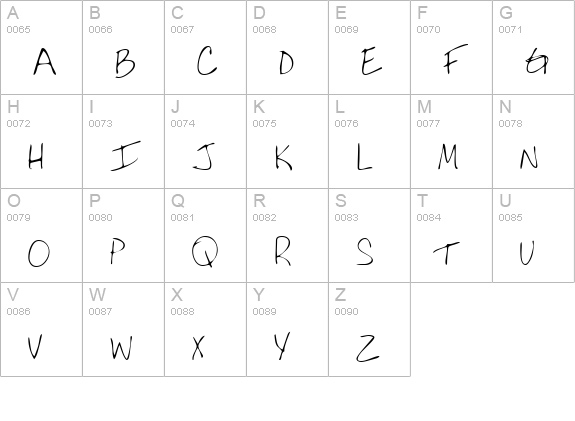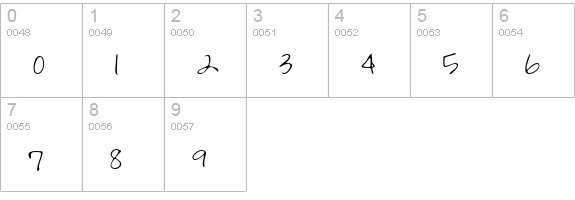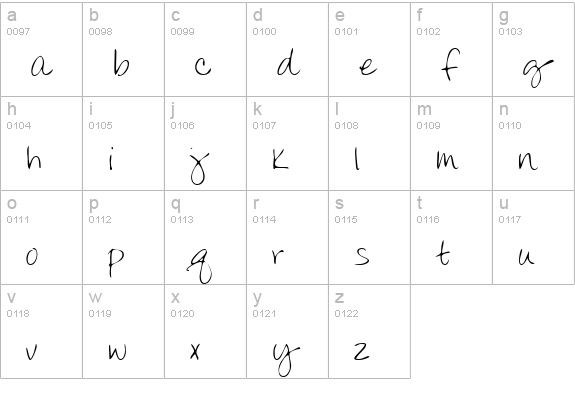
DonnysHand Regular Font Details
DonnysHand Regular is the standard, neutral variant in the DonnysHand typeface family \xE2\x80\x94 well suited to general body text, paragraphs, and standard typographic work.
DonnysHand Regular is a charming and versatile font that brings a touch of elegance and personality to any project. With its unique handwritten style, this font is perfect for adding a personal and authentic feel to your designs. Whether you're creating invitations, greeting cards, logos, or any other creative project, DonnysHand Regular is sure to make a statement. The best part? DonnysHand Regular is completely free to download at FontsMarket.com. This means you can easily access this beautiful font and use it in your projects without any cost. DonnysHand Regular offers a wide range of glyphs and characters, making it suitable for various languages and design needs. So why wait? Download DonnysHand Regular today and elevate your designs with its distinctive charm and elegance.